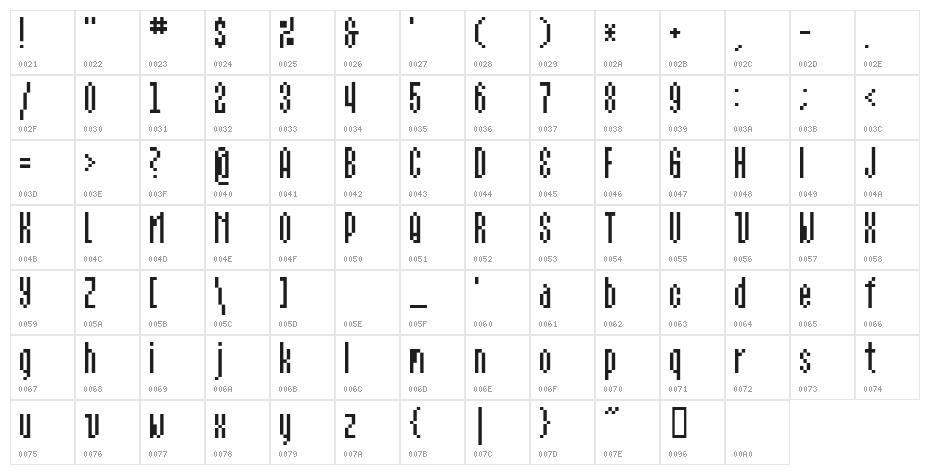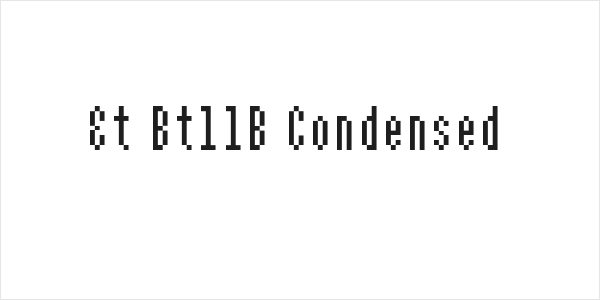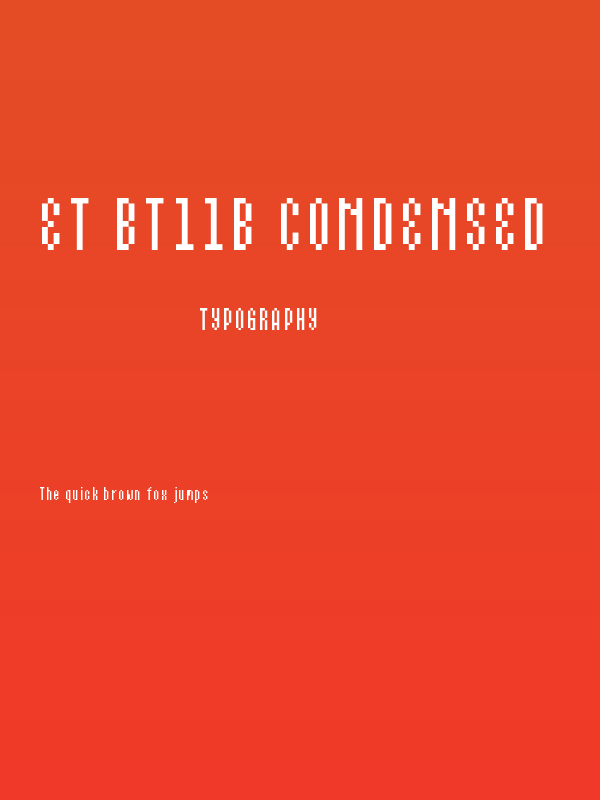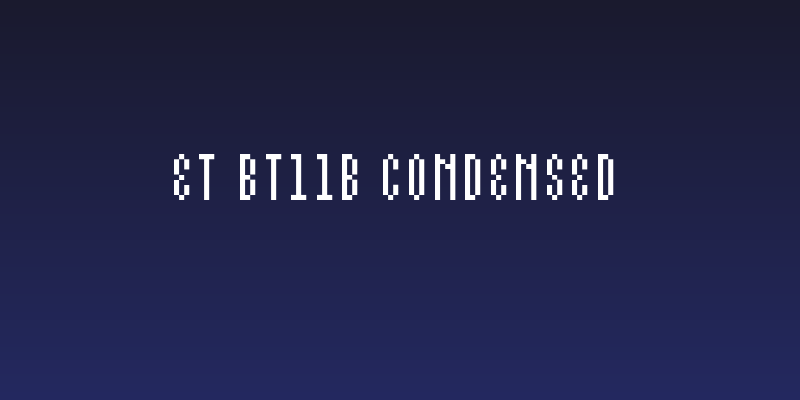
Et Bt11B Condensed Font
Et Bt11B Condensed Description
This font features a pixelated, blocky design reminiscent of early digital displays and retro video games. Each character is constructed with a grid-like precision, giving it a distinctly digital and technical appearance. The uppercase and lowercase letters maintain a consistent height, contributing to a uniform look. The numerals and special characters follow the same pixelated style, ensuring cohesion across all glyphs. The condensed nature of the font allows for efficient use of space, making it suitable for environments where space is limited. Its bold, geometric shapes make it highly legible even at smaller sizes.
| Overall Style | Retro, Digital |
| Use Case | Headlines, Logos, Digital displays |
| Proposed Projects | Ideal for retro-themed designs, video game interfaces, digital displays, and tech-related branding. |